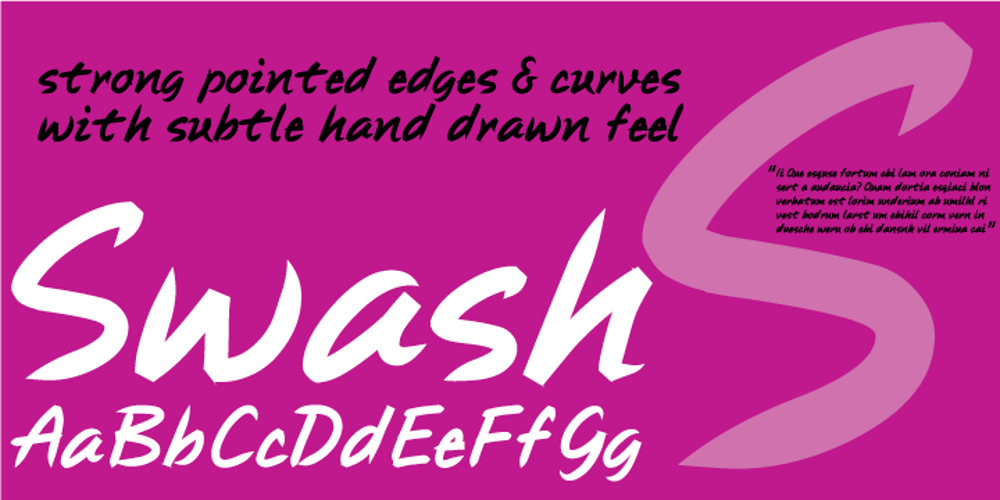
Swash Font Family was designed by Paul O’Connell and published by Paul O’Connell. Swash contains 1 styles and family package options. This innovative styled swash font was created to suit various design applications within the typeface market and is aimed at people looking for a sharp styled brush script typeface that doesn’t fit in with the regular trends of hand written fonts. Designed and produced by Paul O’Connell of POCT, it is a strong pointed styled typeface with sharp edges and curves, but still manages to retain a subtle hand drawn feel.